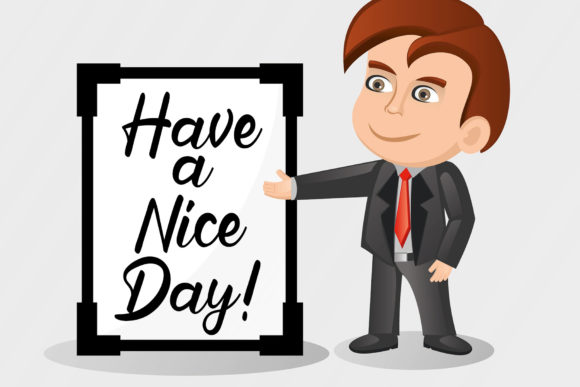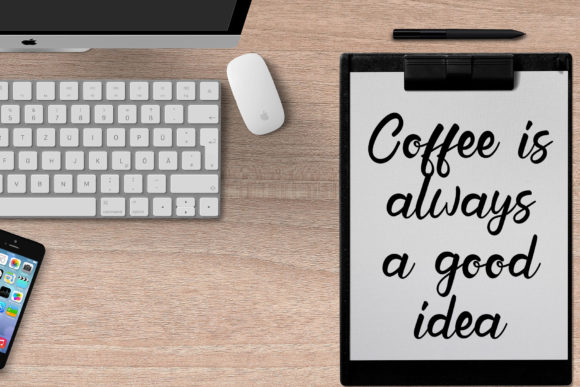
About Football Tournament Font
Football Tournament is an enchanting handwritten font. This versatile script font has a wide spectrum of applications ranging from greeting cards to headlines and is guaranteed to add a romantic feel to your next project.